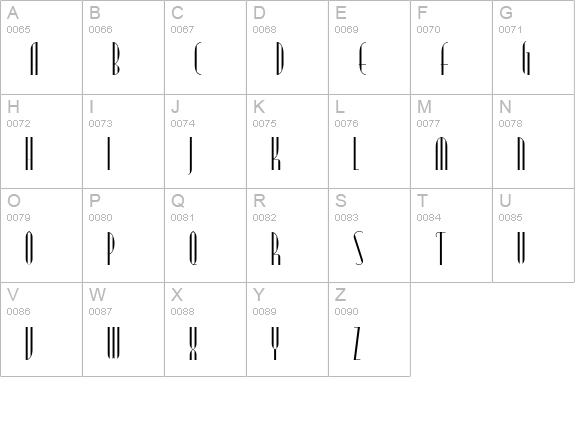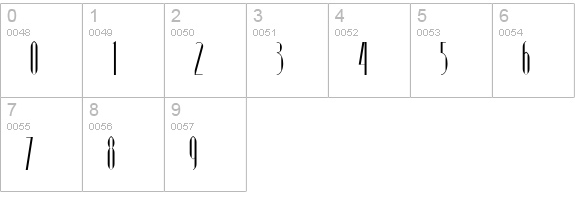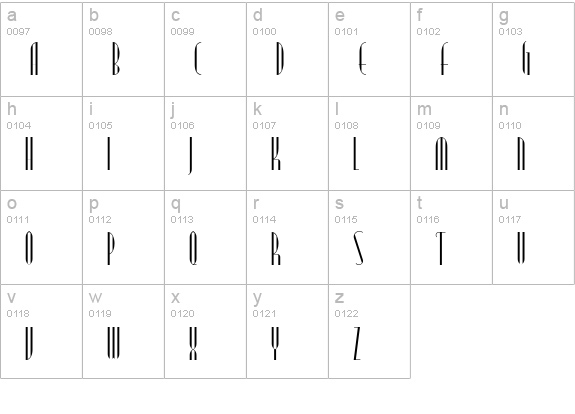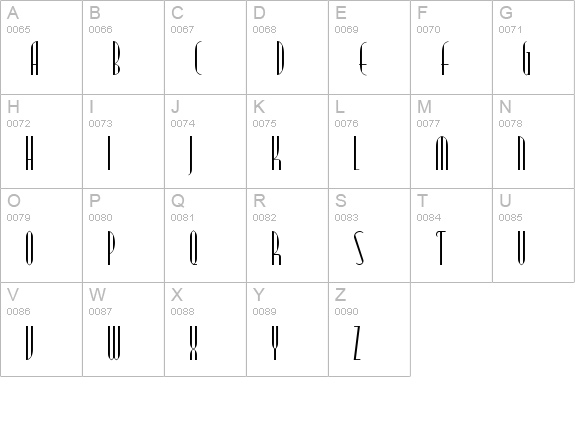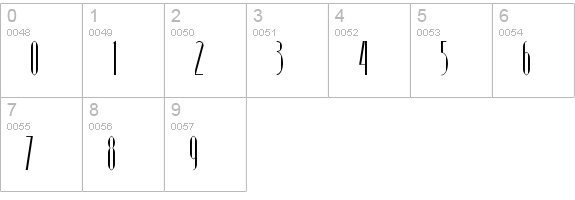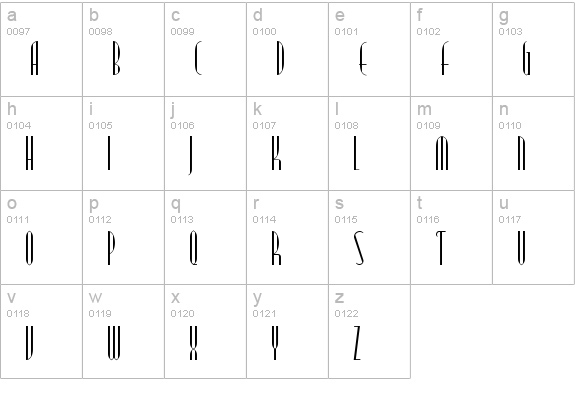
Modern Typography NF Font Details
Modern Typography NF is a sleek and contemporary font that brings a fresh look to any design project. With its clean lines and minimalist aesthetic, this font is perfect for adding a modern touch to branding, advertising, and editorial layouts. The sharp angles and geometric shapes give it a sophisticated and professional appearance, making it ideal for a wide range of applications. What sets Modern Typography NF apart is not just its stylish design, but also the fact that it is available for free. You can easily download this font from FontsMarket.com and start using it in your projects right away. Whether you're a graphic designer, a web developer, or a creative professional, Modern Typography NF is a versatile and eye-catching font that will elevate your work to the next level. Don't miss out on this fantastic opportunity to enhance your designs with this stunning typeface. Download Modern Typography NF for free today and see the difference it can make in your projects.